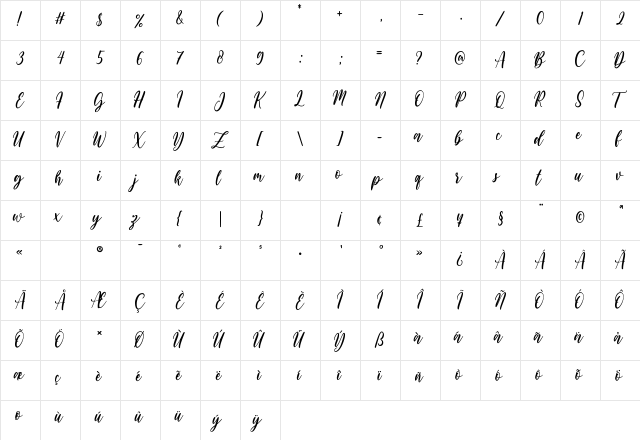
Gelathy Regular
Design Context for Gelathy Typeface
Gelathy is a composed and adaptable typeface that performs quietly and consistently across a wide range of design contexts.
Pro Tip: Use Gelathy in both headline and body roles to test its range before committing to a single application.